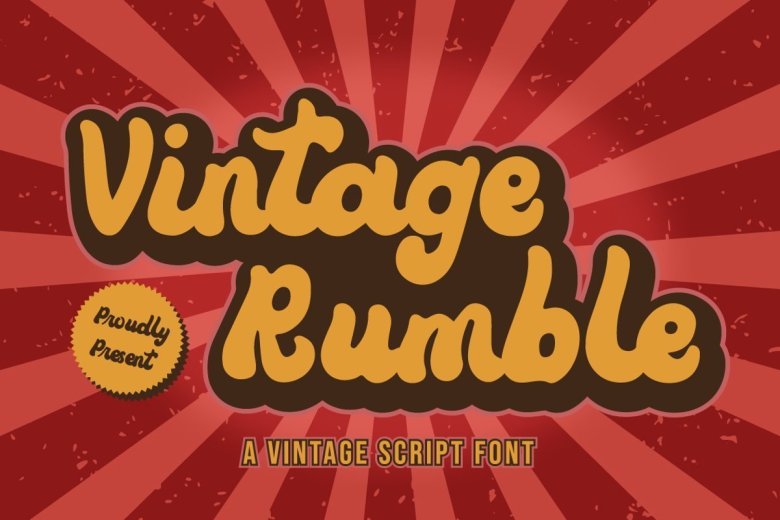
Vintage Rumble Font
Vintage Rumble is a bold script with a modern look. It features an incredibly classic style, while still keeping a friendly feel. Andalusia is the perfect font for making original and outstanding designs.  This font is PUA encoded which means you can access all of the glyphs and swashes with ease! It also features a wealth of special features including alternate glyphs and ligatures.